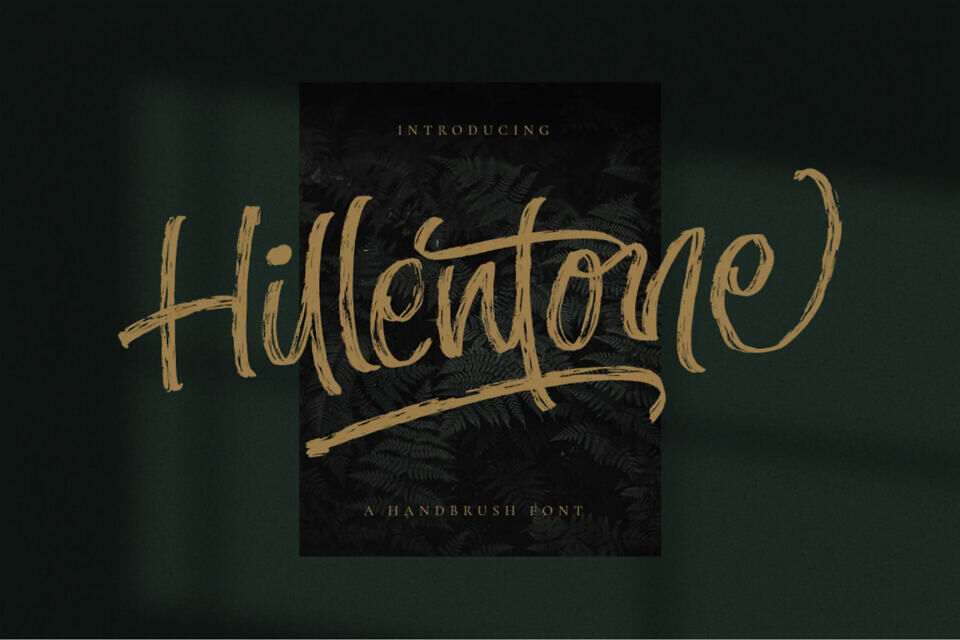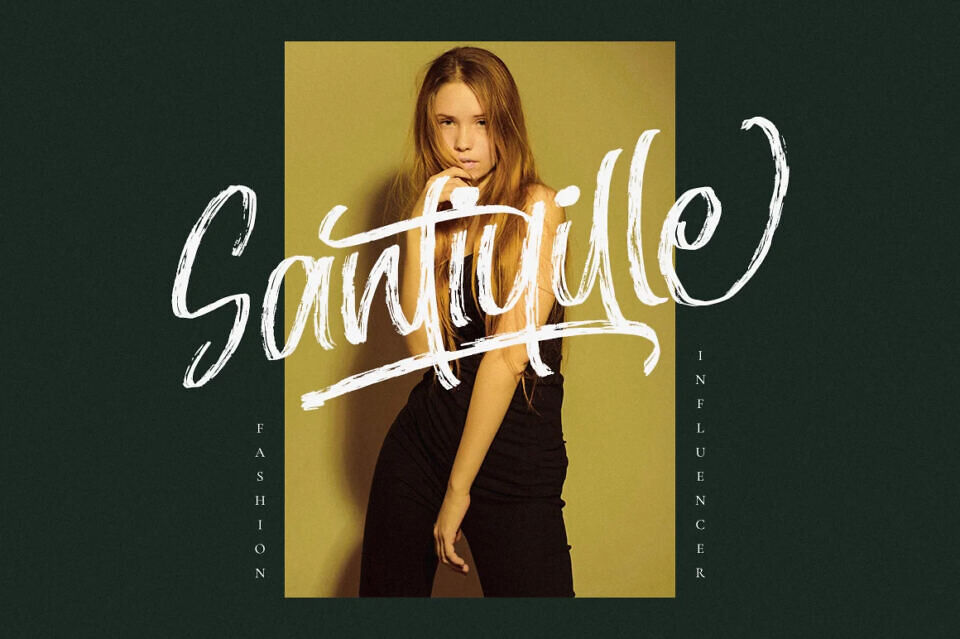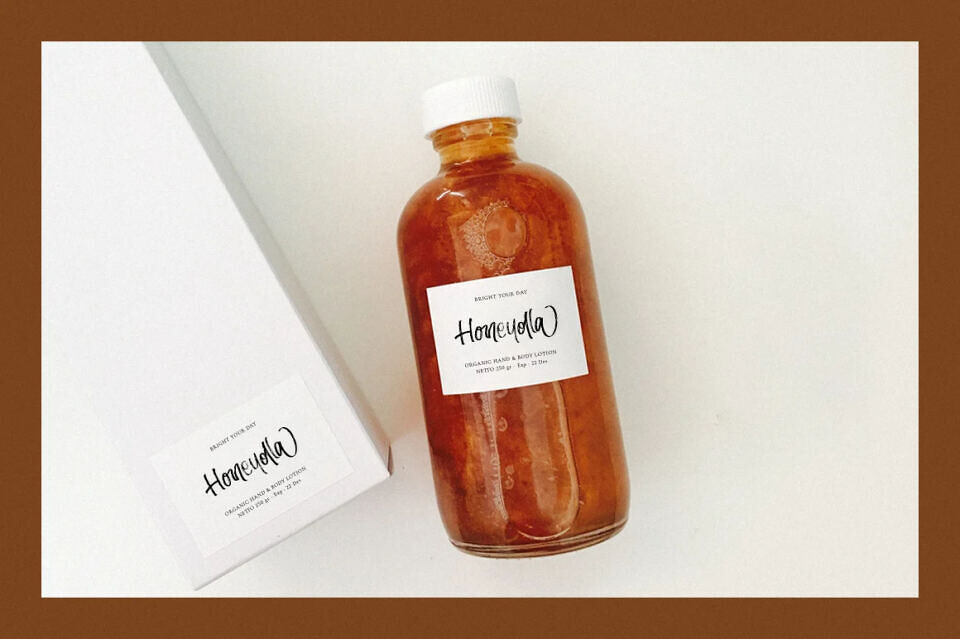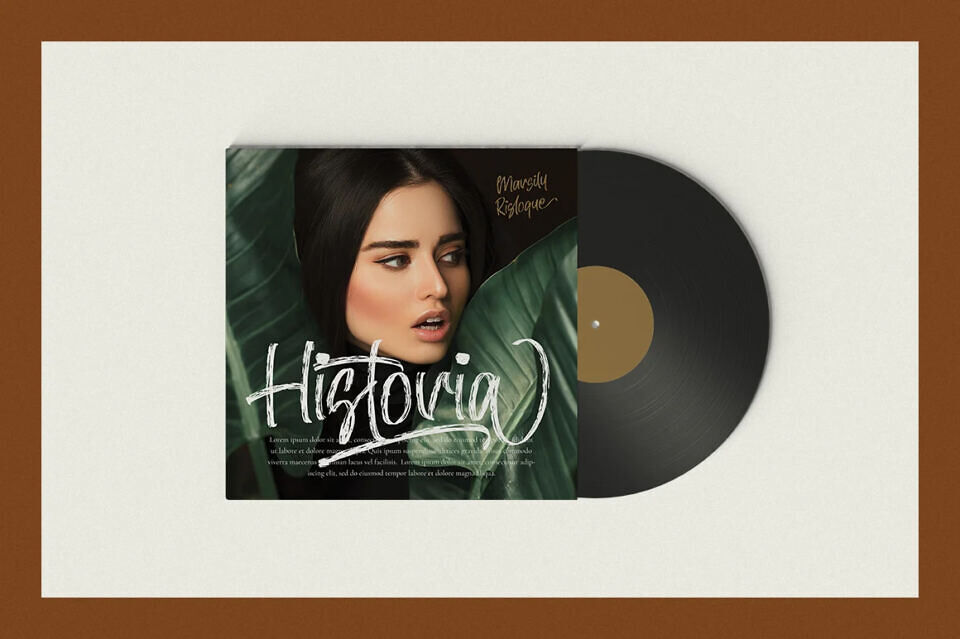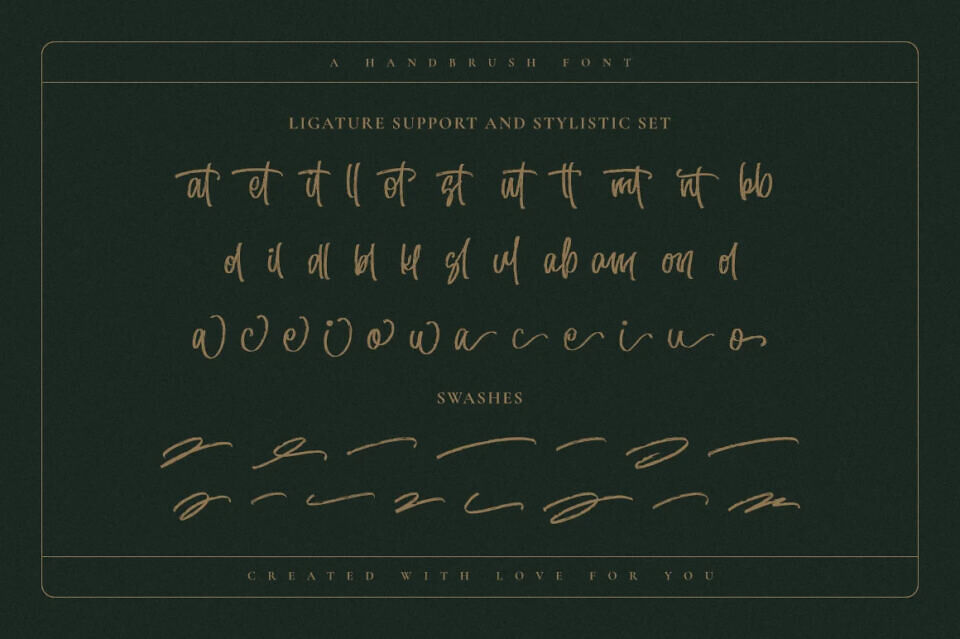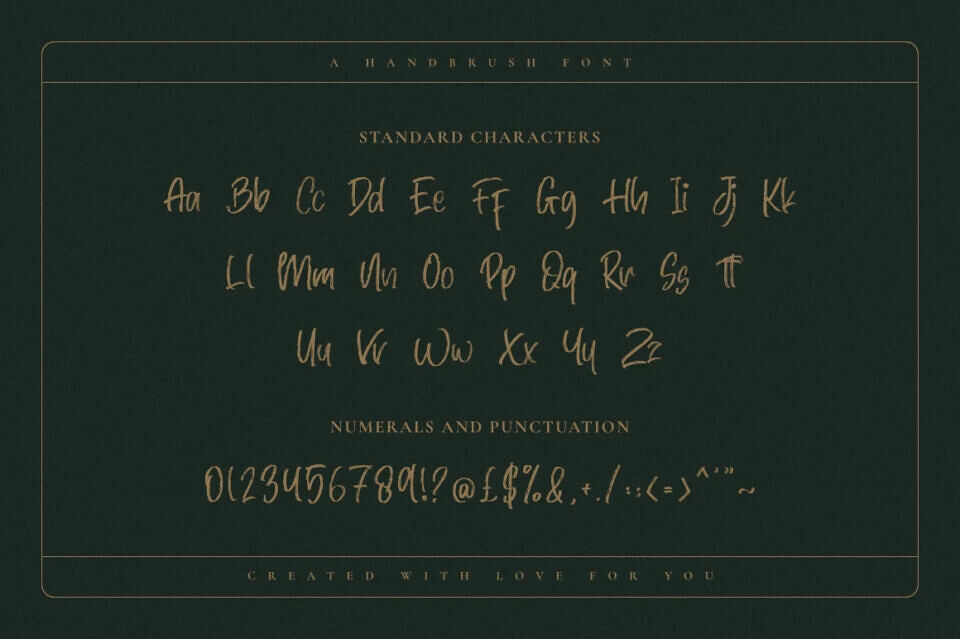
Hillentone Font
Hillentone is a magical script font carefully created with a touch of elegance. Whether you’re looking for fonts for Instagram or calligraphy scripts for DIY projects, this font will turn any creative idea into a true piece of art!